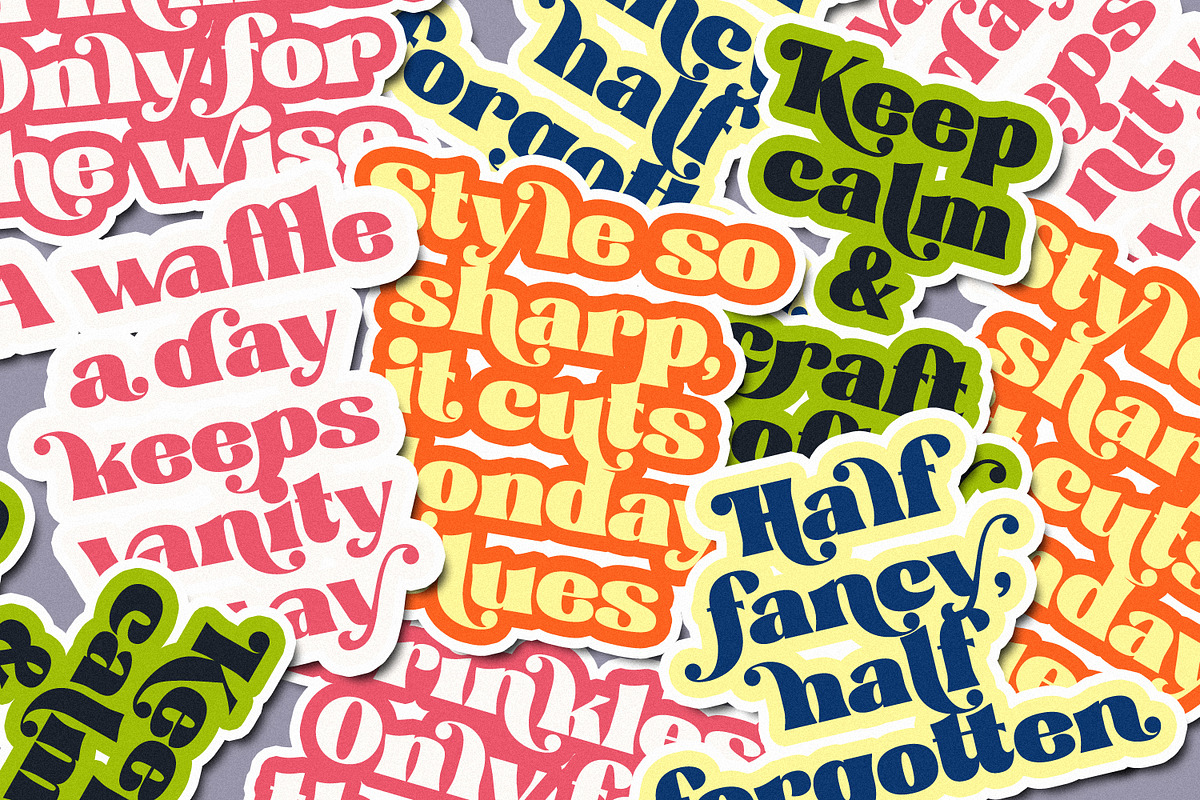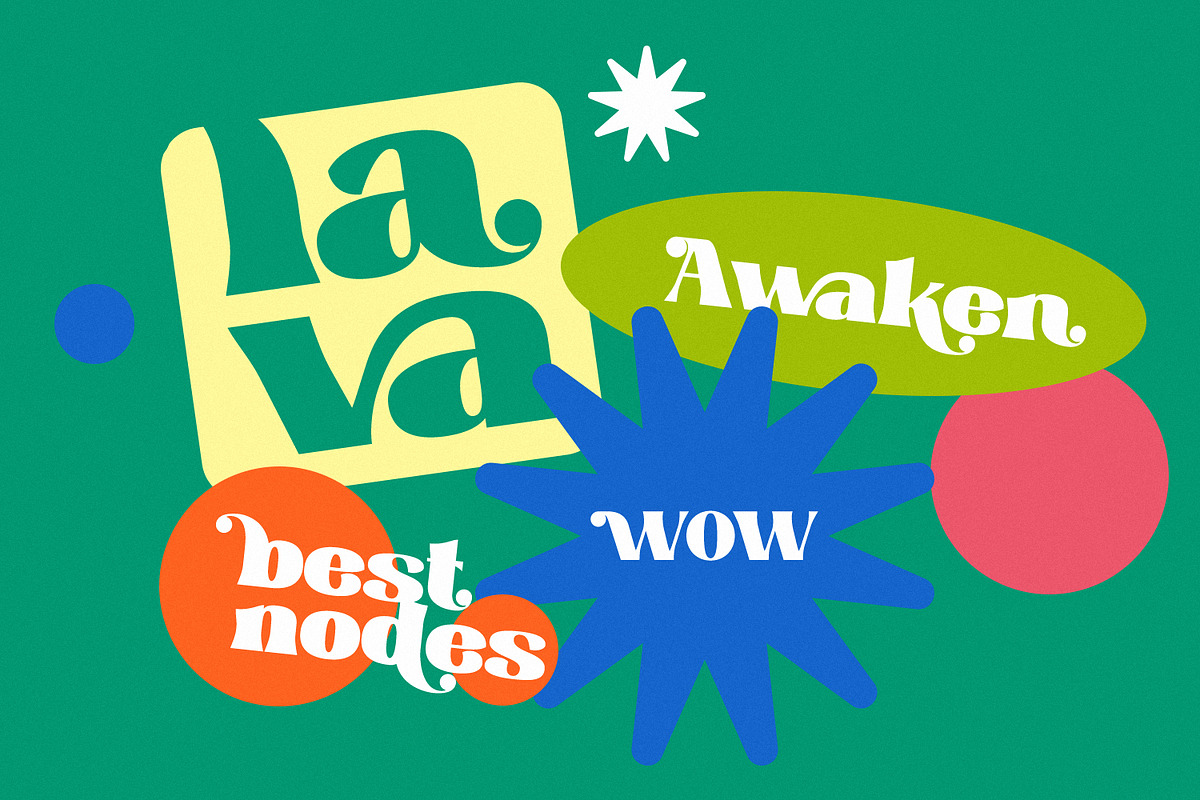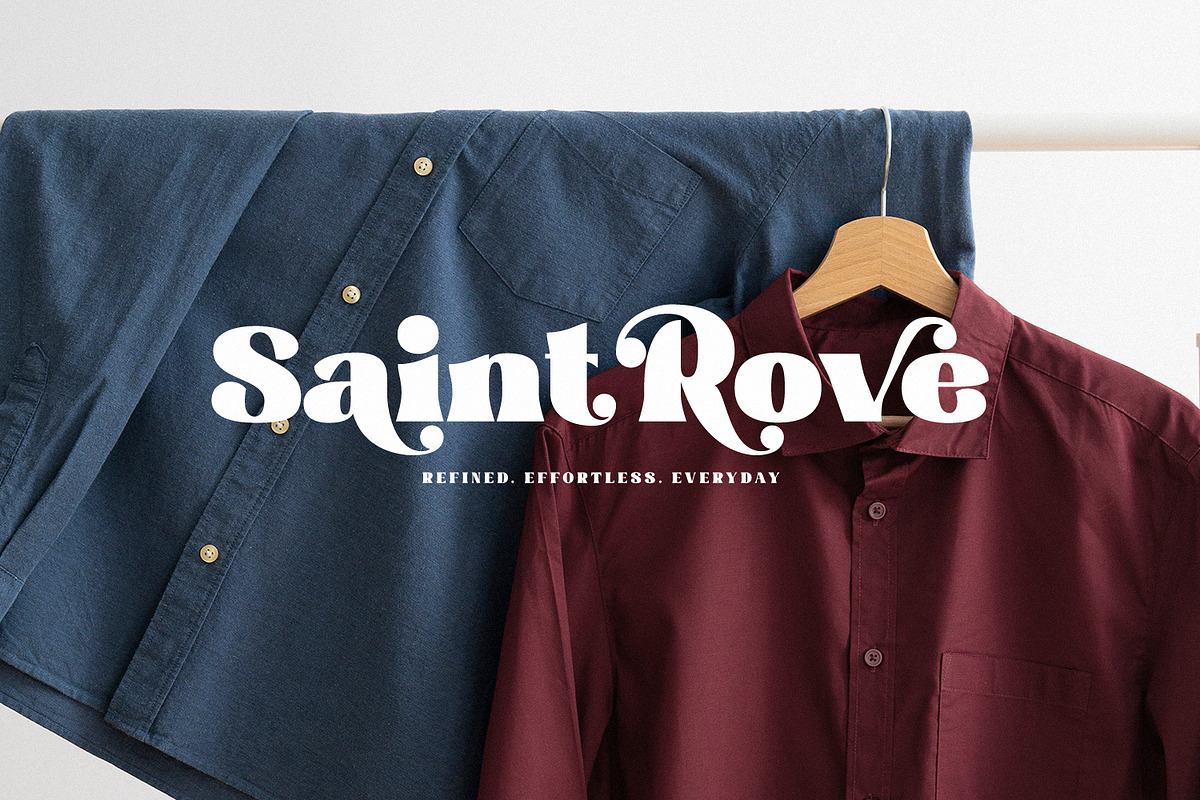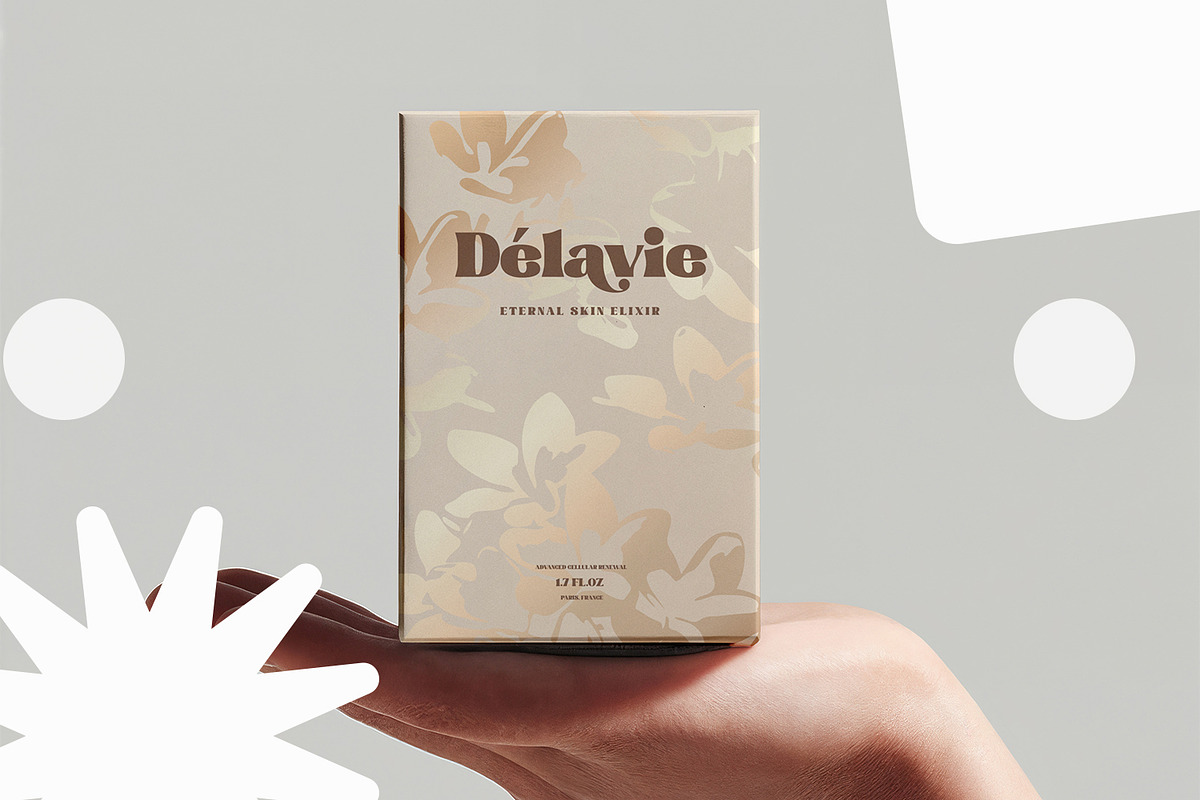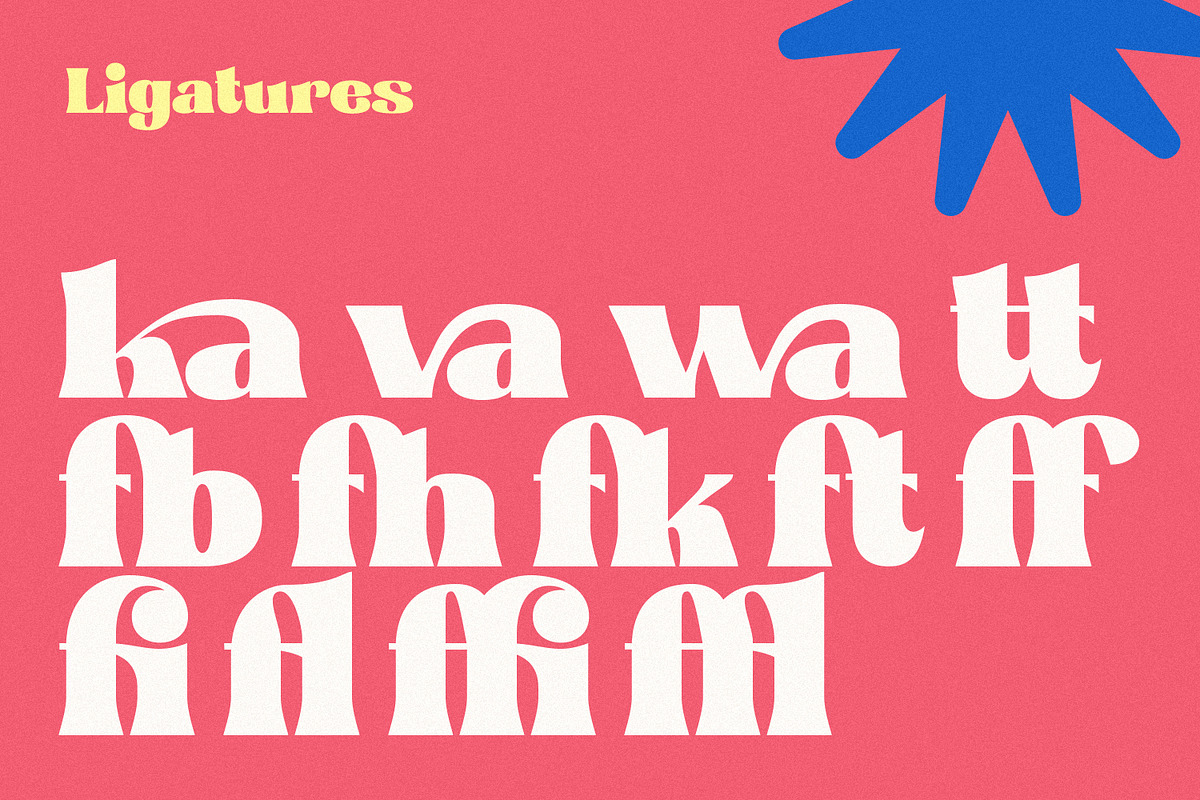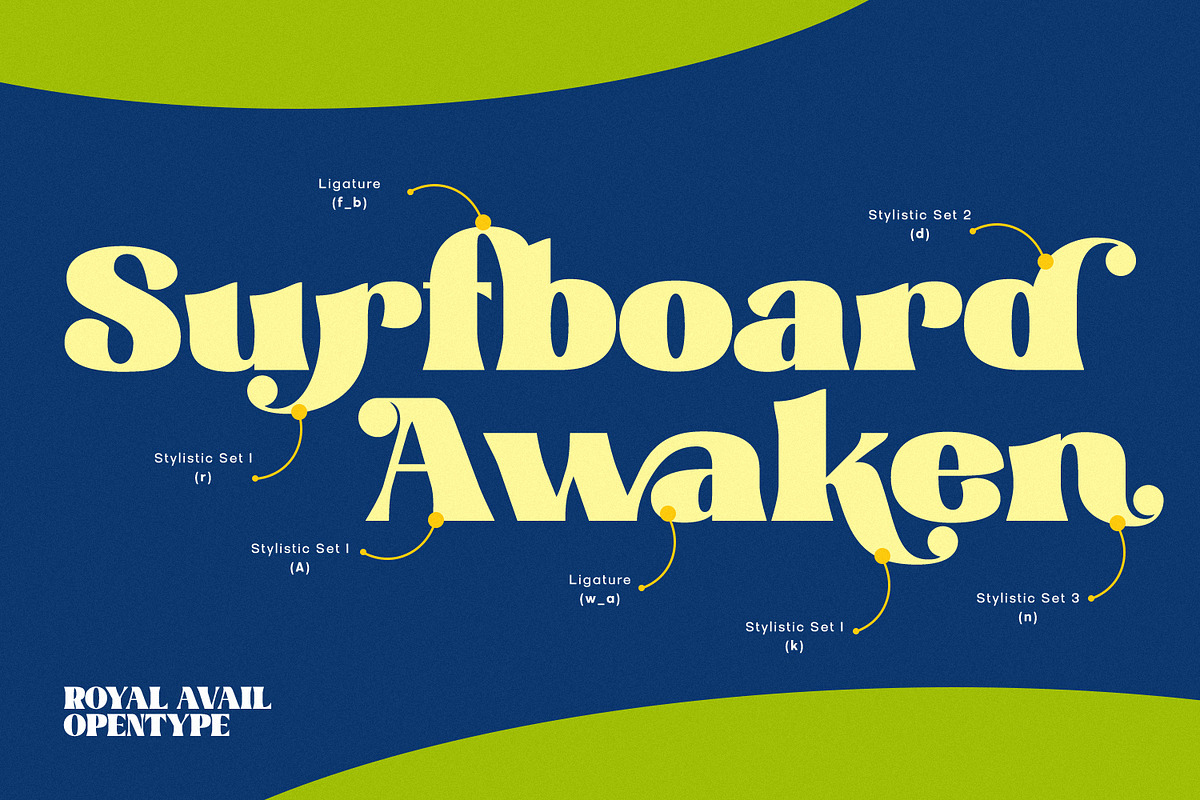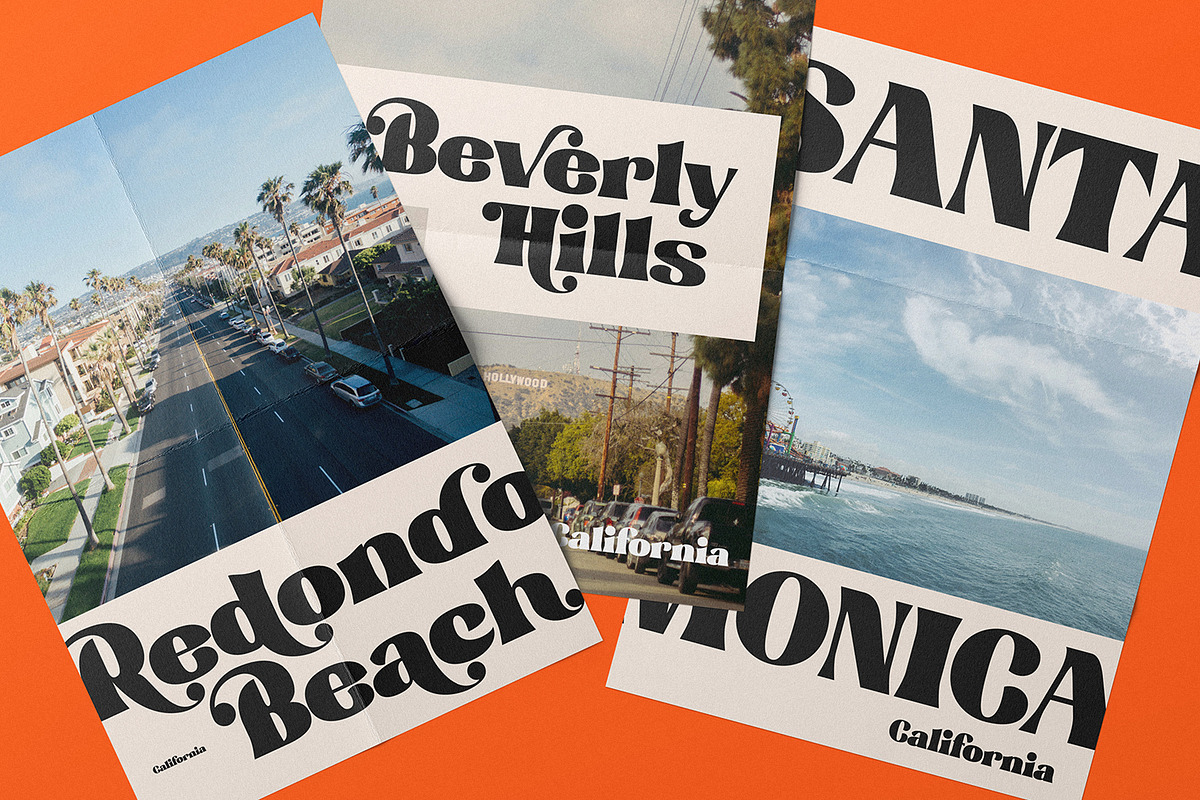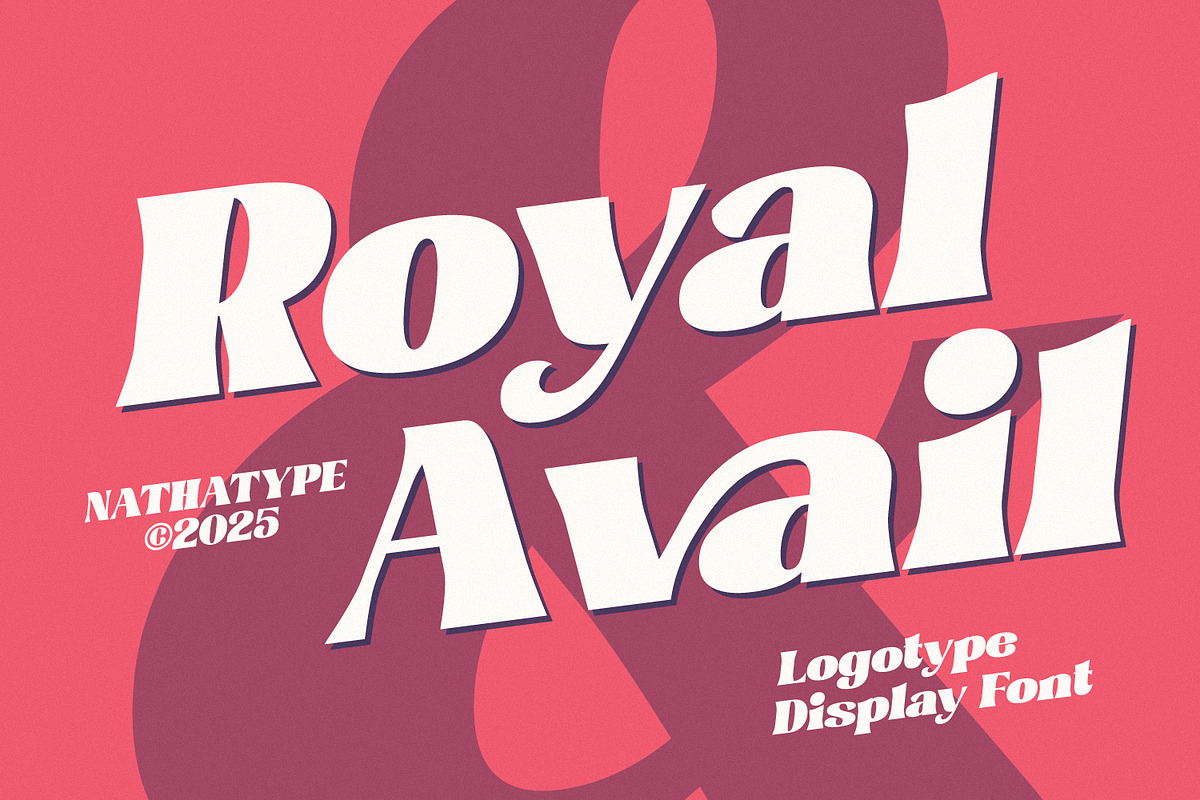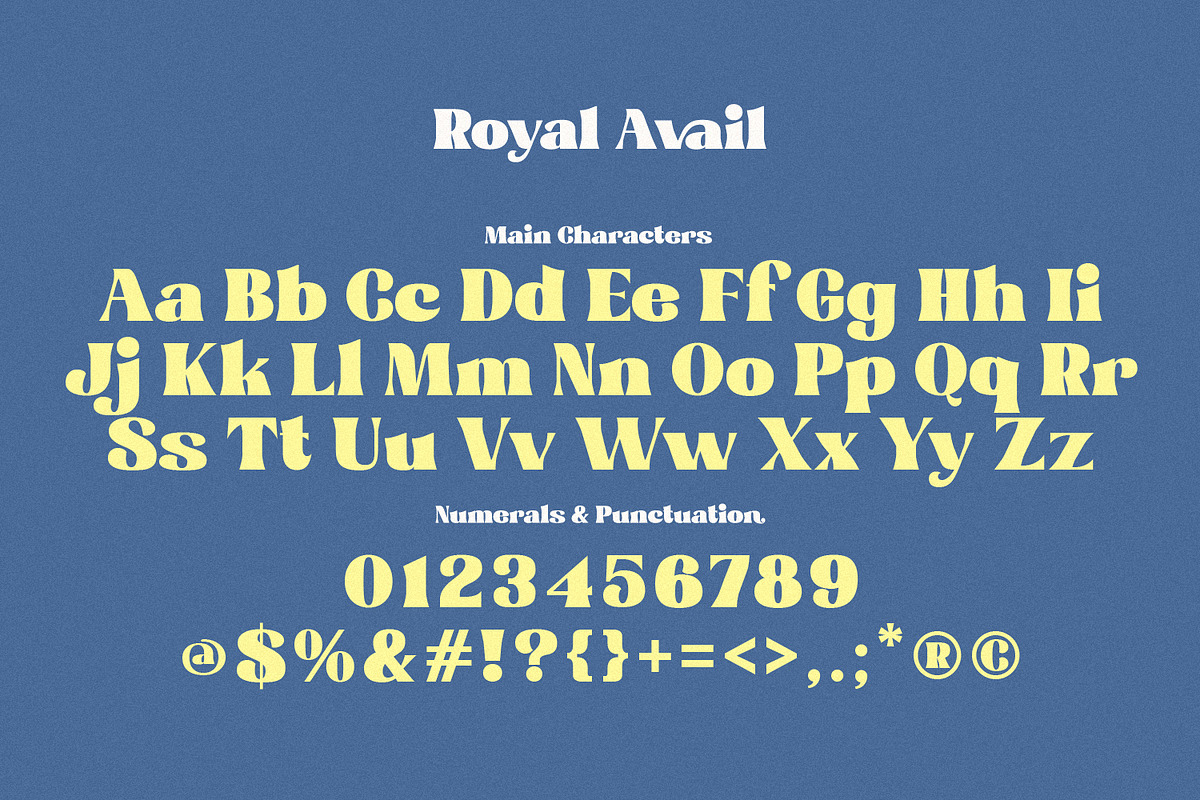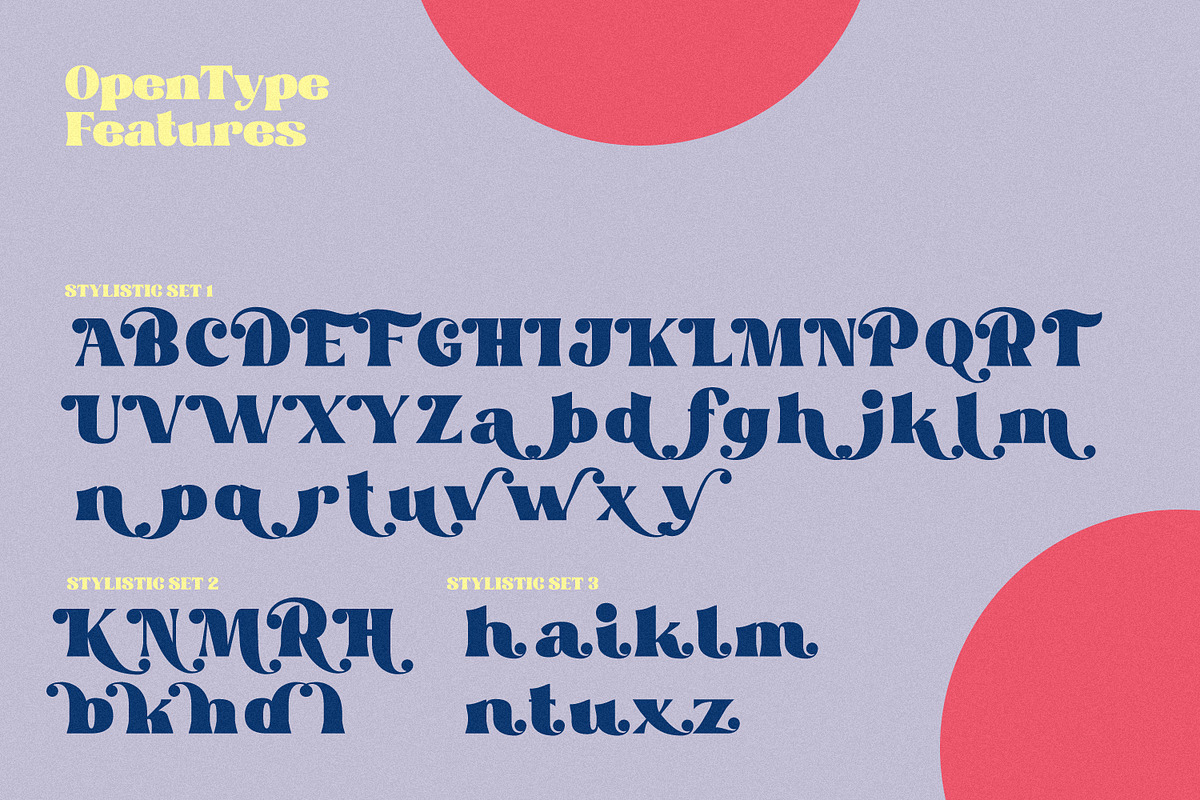
Royal Avail
Royal Avail is a striking display font designed with a very thick weight. Its powerful structure and confident style create a commanding visual impact, ensuring your message stands out instantly in any design context. Crafted with precision, Roma Nova shows clearly visible contrast between thick and thin strokes, giving each character a dynamic and expressive appearance. This sophisticated contrast adds depth and elegance, blending modern typography with timeless display aesthetics. In addition, enjoy the features here.
- Stylistic Sets
Royal Avail fits in branding, quotes, invitations, logos, posters, and many more designs. Find out more ways to use this font by taking a look at the font preview.